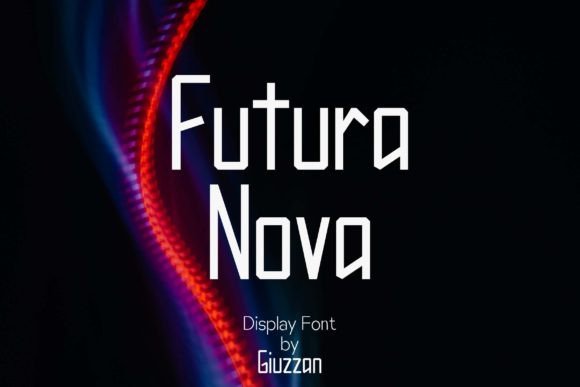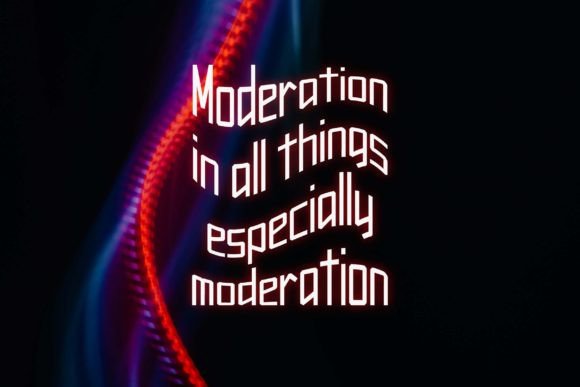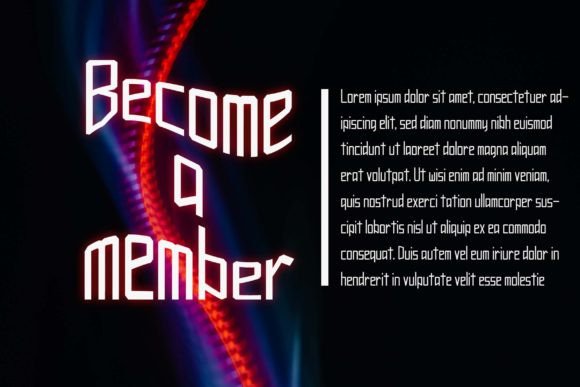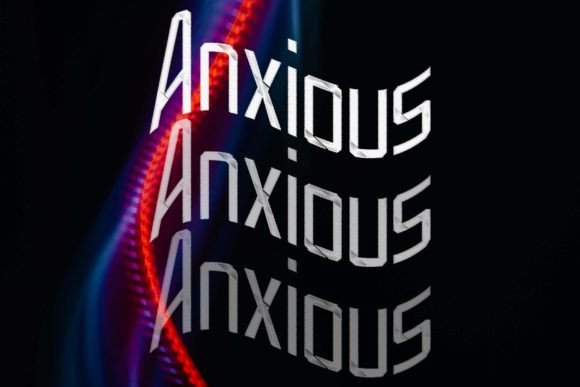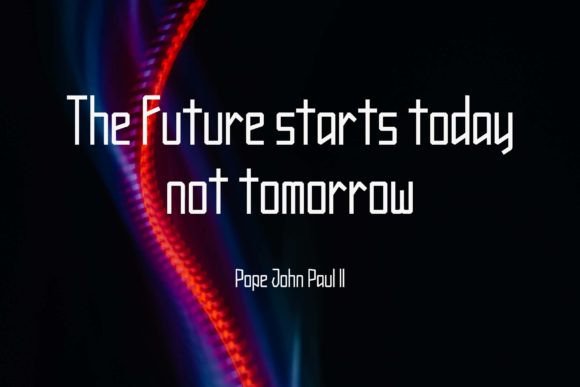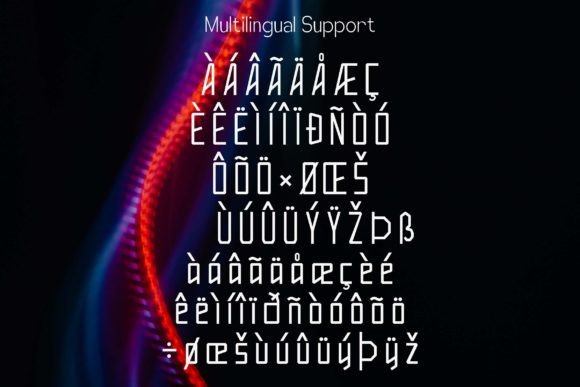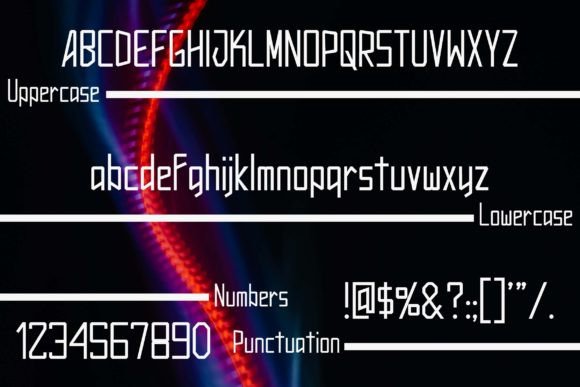
A New Era in Typography: Futura Nova Font
As a designer, there’s nothing quite like the thrill of discovering a new font that perfectly captures the essence of your creative vision. It’s the moment when all the pieces come together – the colors, the shapes, the words – and you know you’ve found something special. For many, that moment comes when they stumble upon the Futura Nova Font, a modern twist on the classic Futura typeface that’s as timeless as it is contemporary.
With its comprehensive character set and distinctive personality, the Futura Nova Font is the perfect choice for designers seeking a fresh yet classic typeface. Whether you’re working on branding, posters, or any other design project, this versatile font is sure to make a lasting impression.
Futura Nova Font Key Features
- Font Family: Futura Nova, a modern sans-serif font designed for digital use.
- Unique Characteristics: Futura Nova features a geometric, futuristic design with a focus on legibility and modernity, making it ideal for digital applications, including UI/UX design, web design, and digital publishing.
Futura Nova Font Review
I recently had the chance to work with the Futura Nova font, and I’m excited to share my thoughts on it. ✨ One thing that really stands out is its modern and sleek aesthetic. It’s perfect for projects that need a touch of futurism and sophistication. The font’s clean lines and geometric shapes make it a great choice for digital designs, especially in the tech and gaming industries.
Another aspect that I appreciate is the font’s versatility. Futura Nova comes in multiple weights and styles, which allows designers to experiment with different looks and feels. This is particularly useful for creating visual hierarchies and adding emphasis to key elements.
What Works Well: ✨
- Modern and sleek aesthetic
- Perfect for digital designs
- Highly versatile
- Multiple weights and styles available
- May not be suitable for traditional or print-based designs
- Can feel a bit cold or impersonal in certain contexts
- Not as many language support options as some other fonts
Overall, I think Futura Nova is a solid choice for designers who need a modern and futuristic font. While it may not be perfect for every project, it’s definitely worth considering for digital designs that require a touch of style and sophistication.
Futura Nova is a versatile font suitable for various design projects, including:
- Graphic design
- Typography
- Logos
Tips for Getting the Most Out of Futura Nova
To get the most out of Futura Nova, consider the following tips:
- Use it in combination with other sans-serif fonts for a